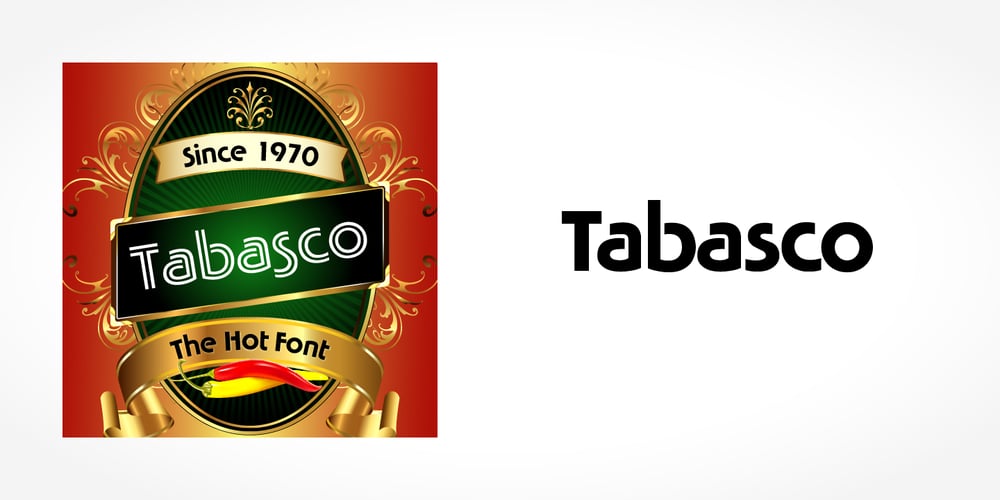
Tabasco
Tabasco font
Tabasco Font Family was designed by published by SoftMaker. Tabasco contains 3 styles and family package options. SoftMaker revives John Schaedler’s popular Tabasco typeface with this release. SoftMaker’s Tabasco comes in regular and bold styles, and the famous bi-line variant (sometimes called “Paprika”) is also available again under the name Tabasco Twin.